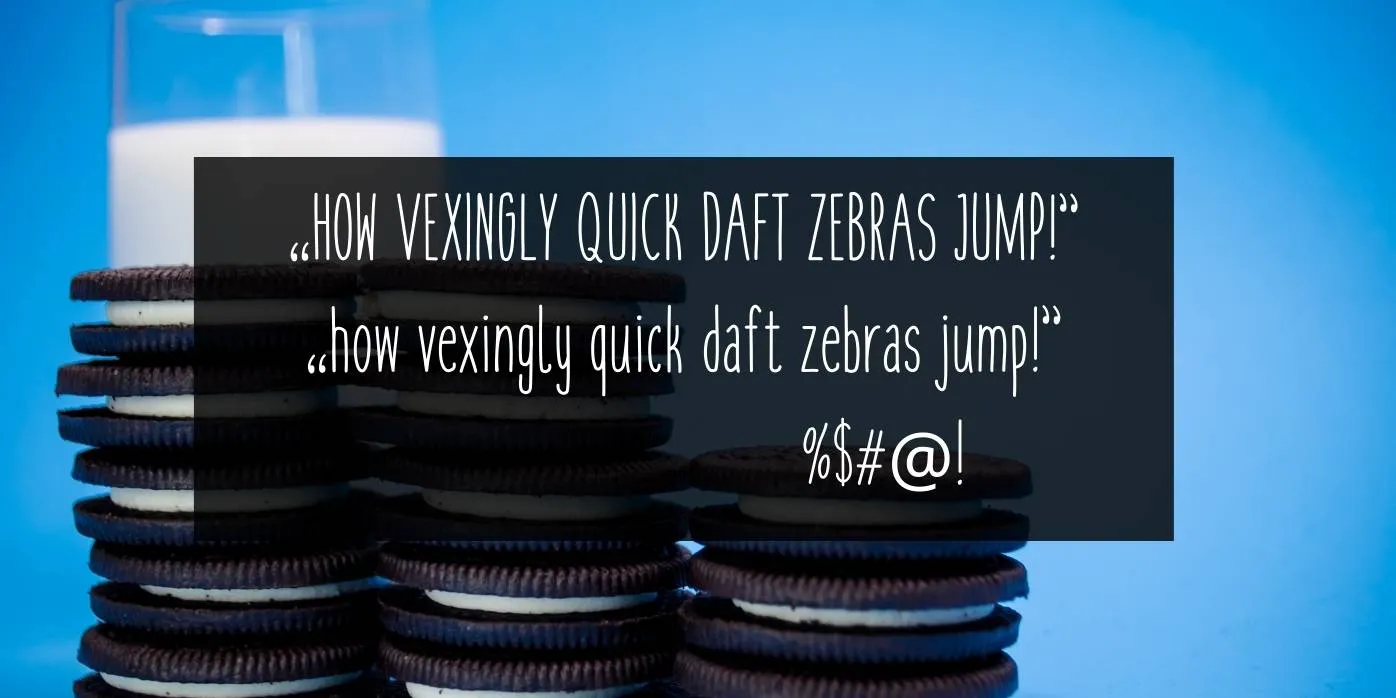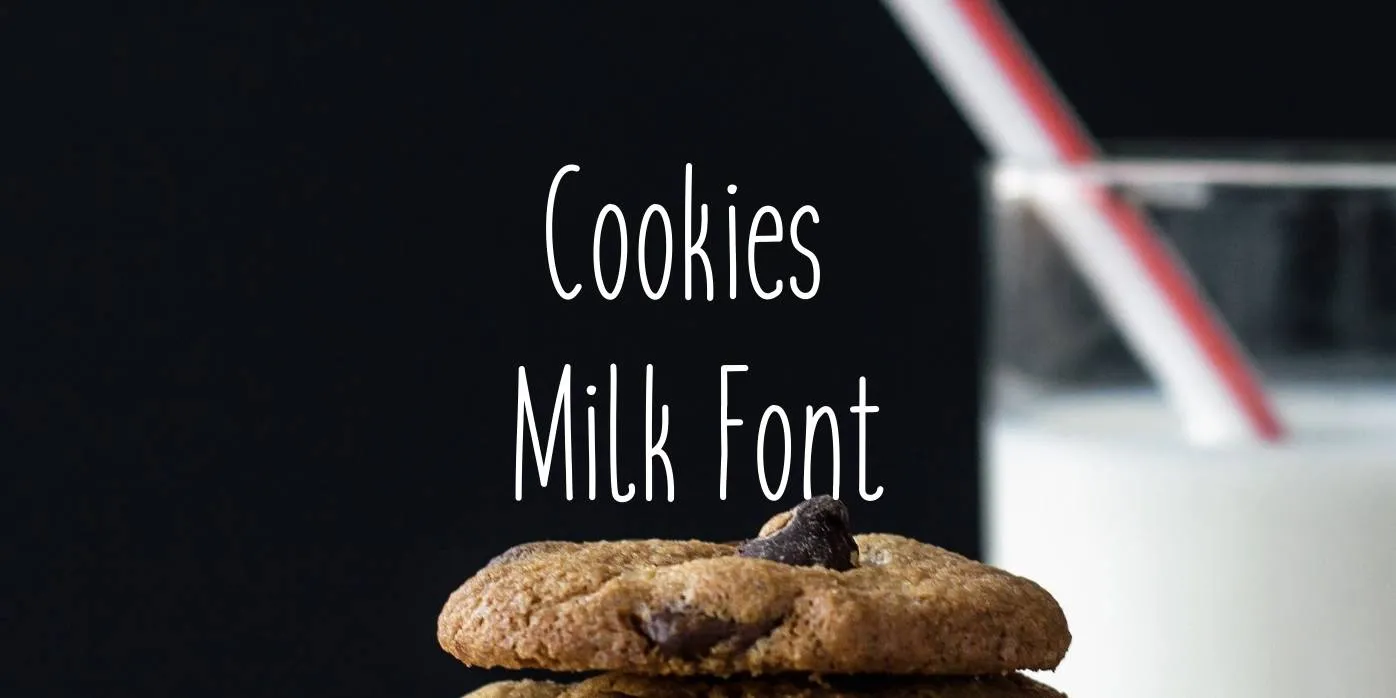
Cookies And Milk Font
Here, we present a classic font family named Cookies and Milk Font. This awesome typeface was developed by phitradesign. It belongs to the handwritten font family. This particular font family has a very unique and trendy look.
The best thing about this font is that it is available for various uses. You can use it for both personal and commercial purposes. It is available in unique styles and characters. The character set also includes some punctuation marks and symbols.
This font is available in two different styles. These are Regular and Bold. Each style has its own unique looks and feel. The Regular style is more suitable for casual use while the Bold style is perfect for more formal occasions.